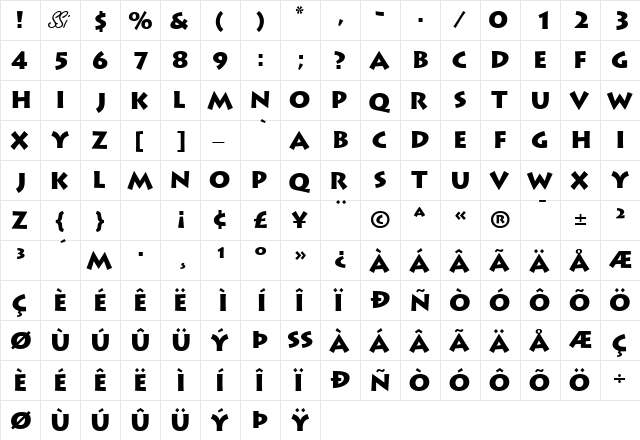
AustereBlackCapsSSK Bold Font Preview
AustereBlackCapsSSK Bold
Design Context for AustereBlackCapsSSK Typeface
AustereBlackCapsSSK offers clean, dependable letterforms without strong stylistic allegiance, making it a practical choice for designers who need flexibility. The heavy weight commands attention and anchors typographic hierarchies.